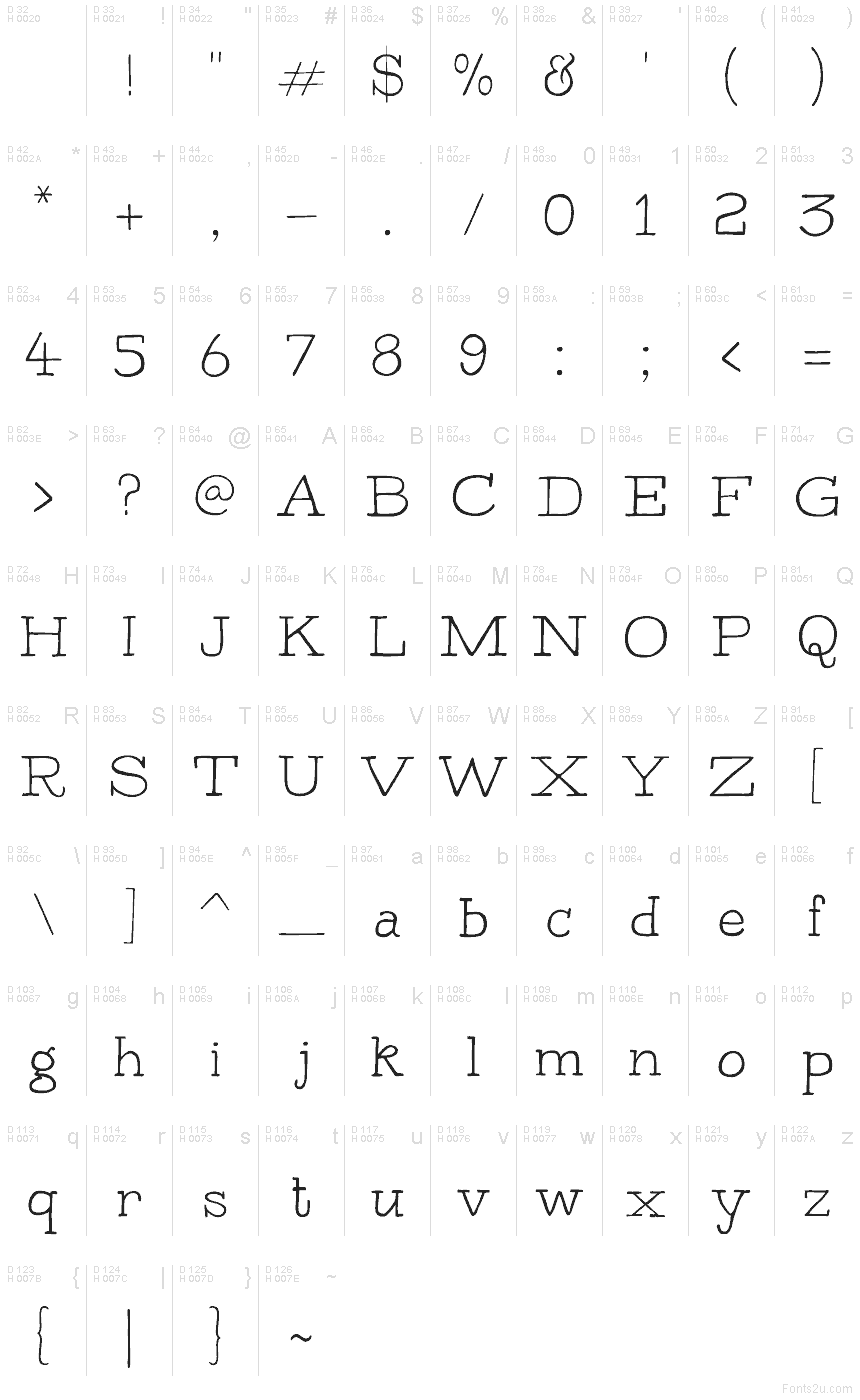
Bowler Hand Light font by Wearecolt is a free hand‑drawn slab serif typeface. Drawn with a Rotring pen, its letters carry inky, scuffed edges and gentle wobble, yet keep a sturdy slab structure that stays readable. When you need something that feels human without turning messy, this lighter cut of the Bowler Hand family hits the sweet spot-warmth up front, clarity on delivery.
Using Bowler Hand Light, headlines and short text gain a lived‑in, vintage vibe that still scans fast. It shines on coffee shop menus, small‑batch packaging, heritage logos, poster titles, editorial pull quotes, and craft event flyers. Give it a little breathing room and larger tracking for texture; pair with a crisp geometric sans to handle longer copy. This free font keeps brand voice tactile and trustworthy.